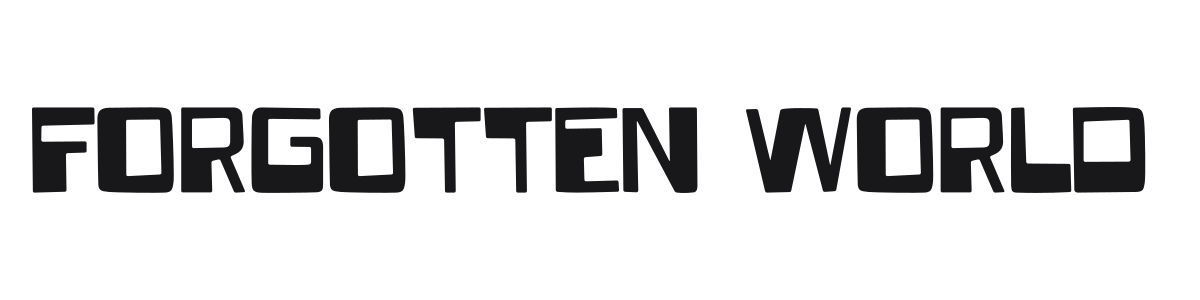
Forgotten World
by Andrew F
Forgotten World is a heavy, blocky display face from Andrew F with rigid geometric letterforms that feel like they were cut from solid slabs. Uppercase only, with a dense, futuristic presence that sits comfortably in sci-fi title screens, game logos, and poster headlines where sheer mass is the point. The squared-off construction leaves no room for subtlety, giving everything a monolithic, industrial tone.